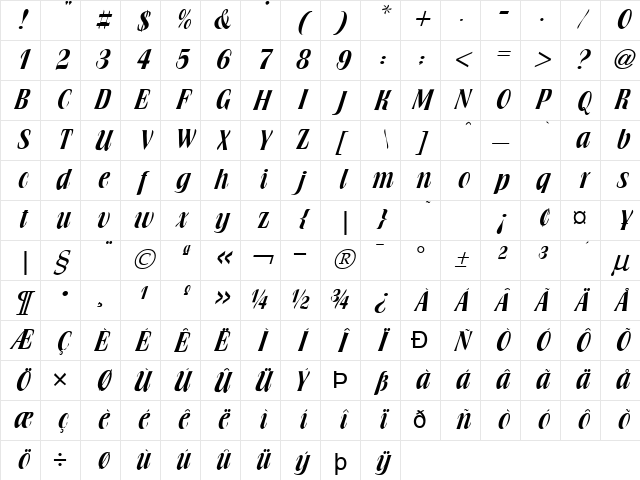
Broach is a composed and adaptable typeface that performs quietly and consistently across a wide range of design contexts. The slanted form adds forward momentum and visual energy.
Pro Tip: Use Broach for emphasis, pull quotes, and subheadings where its slanted energy can add rhythm to the layout.